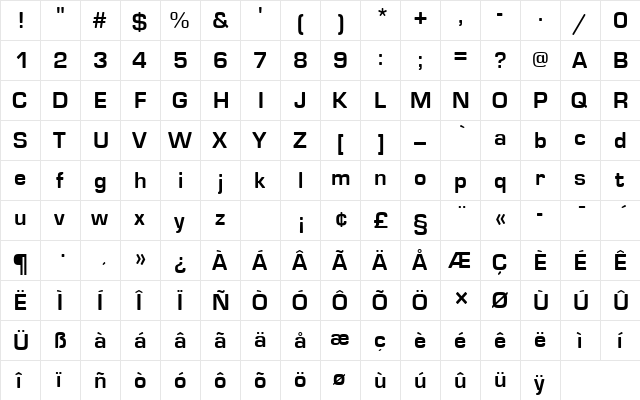
EurostileTBolRo1 Regular
Design Context for EurostileTBolRo1 Typeface
EurostileTBolRo1 is a composed and adaptable typeface that performs quietly and consistently across a wide range of design contexts.